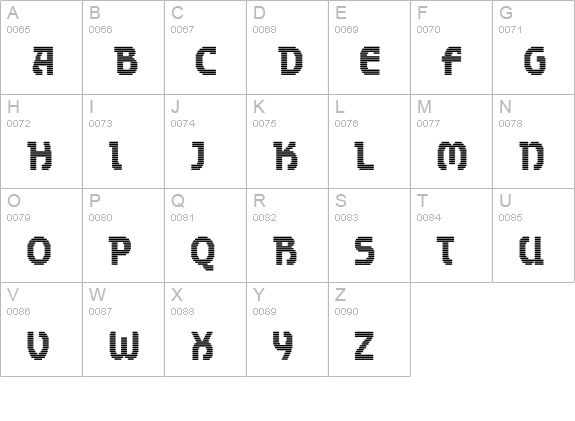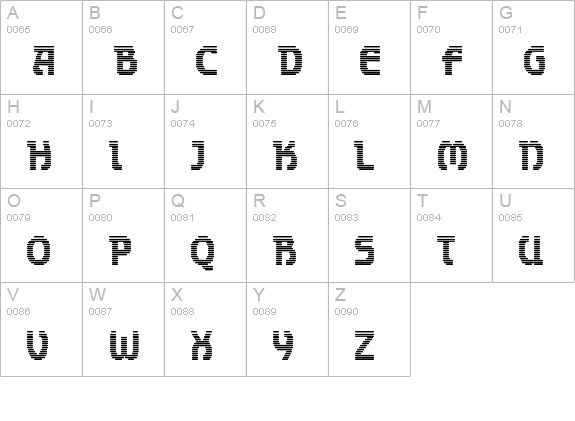
Omega MF Bold Font Details
Omega MF Bold is a strong, high-contrast variant in the Omega typeface family \xE2\x80\x94 well suited to headlines, attention-grabbing titles, and strong calls-to-action.
Omega MF Bold is a bold and striking font that exudes confidence and strength. With its sharp lines and bold strokes, this typeface commands attention and makes a powerful statement. Perfect for headlines, posters, and branding projects, Omega MF Bold is a versatile font that can be used in a variety of design applications. What sets Omega MF Bold apart is not only its bold aesthetic, but also the fact that it is available for free download at FontsMarket.com. This means that designers and creatives can easily access this impactful font without any cost, making it a valuable addition to any font library. Download Omega MF Bold today and make a bold statement in your next design project.